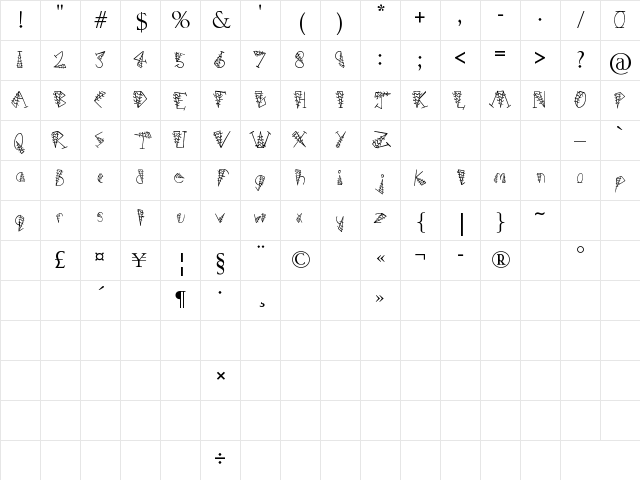
Hairs Dens Bag Regular
Design Context for Hairs Dens Bag
Hairs Dens Bag is a composed and adaptable typeface that performs quietly and consistently across a wide range of design contexts.